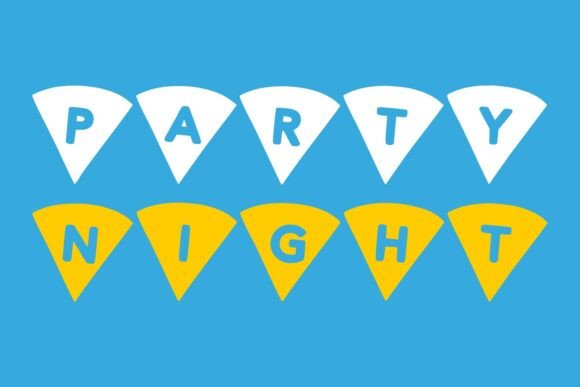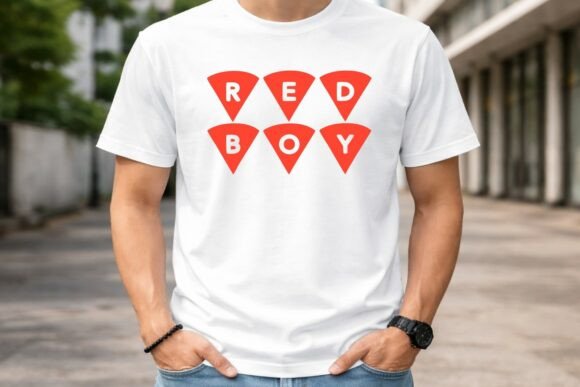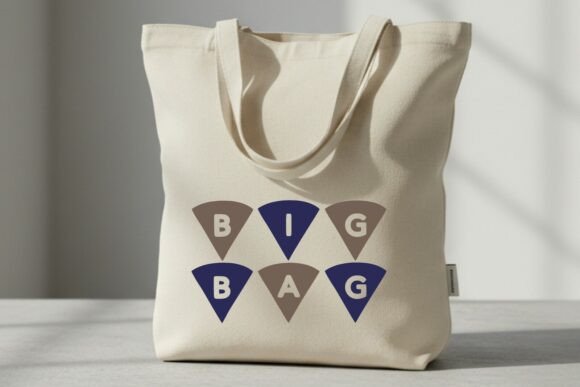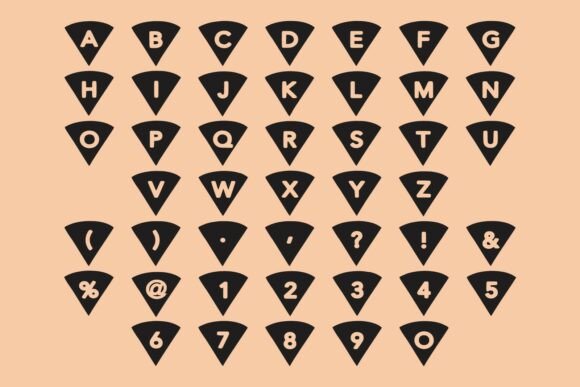
Introduction to Simple Banner Font
Do you remember the thrill of planning a birthday party as a child, surrounded by colorful balloons, streamers, and vibrant party banners? The excitement of creating something special for a loved one, and the joy of seeing their face light up when they see the final product. For designers, this sense of creativity and excitement is just as alive, and that’s where the Simple Banner Font comes in – a playful decorative display font that captures the essence of festive celebrations and joyful moments.
As a valuable design resource, the Simple Banner Font offers a high-quality, free download that can elevate any creative project, from party decorations to greeting cards. Its transparent background makes it easy to overlay onto any image, adding a pop of color and whimsy to your designs. With its cheerful and friendly letter style, this font is perfect for bringing a joyful and lively atmosphere to any design, making it an ideal choice for designers looking to add a touch of fun and festivity to their work.
Key Features of Simple Banner Font
- Includes a range of characters, including uppercase and lowercase letters, numbers, and symbols
- Designed with a bold and modern aesthetic, making it perfect for promotional materials and advertisements
Honest Review: Simple Banner Font
I recently came across the Simple Banner Font and was excited to give it a try. As a designer, I’m always on the lookout for high-quality design resources to enhance my creative projects. The Simple Banner Font did not disappoint.
What works well about this font is its clean and modern design. It’s perfect for creating eye-catching banners and headings that grab attention. The transparent background allows for easy customization and blending with any background image or color. The font is also incredibly easy to download and install, making it a convenient addition to any design project.
- High-quality design that’s perfect for banners and headings
Overall, I’m impressed with the Simple Banner Font. It’s a great addition to any designer’s toolkit and is perfect for creative projects that require a modern and eye-catching look. Just be aware that it may not be suitable for all types of text or projects, especially those that require a more subtle or formal tone.
⚠️ Limitation: May not be suitable for all types of text or projects. ✨ Works well for banners, headings, and creative projects.
How to Use Simple Banner Font
The Simple Banner Font is a high-quality design resource that can elevate your creative project to the next level. This font is perfect for creating eye-catching banners, headings, and titles.
Getting the Most Out of the Simple Banner Font
To get the most out of the Simple Banner Font, use it in combination with other design elements, such as images and graphics, to create a visually appealing design. Experiment with different font sizes and colors to find the perfect combination for your project.
The Simple Banner Font is perfect for a variety of use cases, including:
- Creating eye-catching social media banners
- Designing professional-looking business cards
- Adding a touch of elegance to wedding invitations